What is the Star Wars Font?
The “Star Wars” font is known as “Star Jedi.” It is a custom typeface created to evoke the iconic and futuristic aesthetic of the Star Wars franchise. This font is widely recognized and associated with the opening crawl text that introduces each Star Wars film.
The Star Jedi font features a unique and distinctive design characterized by tall, blocky letters with sharp angles and a slightly distressed or weathered appearance. It is often used for promotional materials, merchandise, and fan-related content to replicate the classic Star Wars opening credits. The font instantly transports fans to the epic and adventurous galaxy far, far away, making it a beloved and recognizable typeface in the world of science fiction and pop culture.
Star Wars Logo Font:
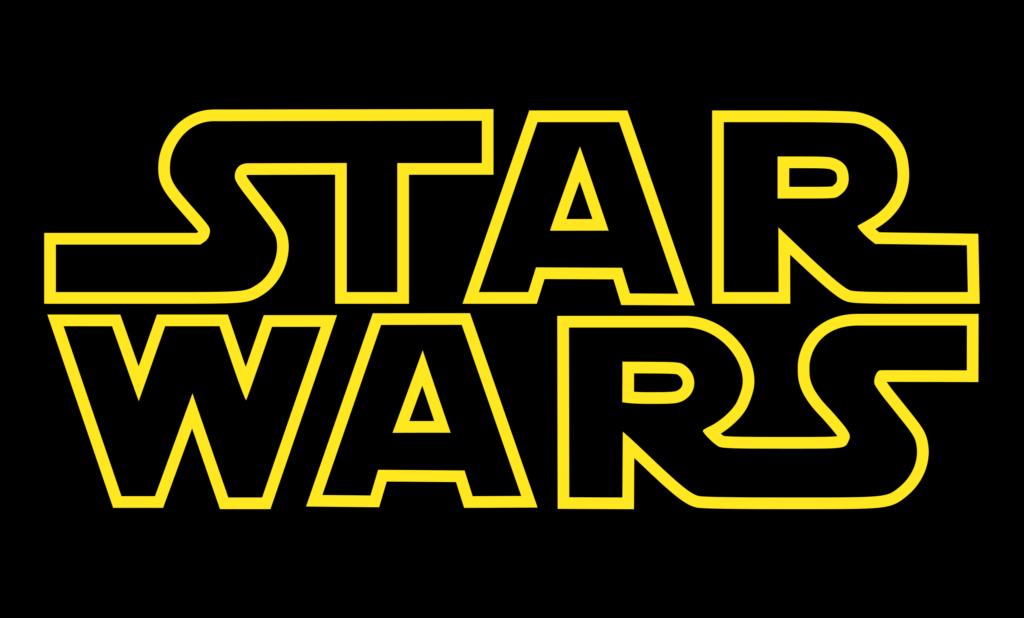
What is the Closest Equivalent Font in Canva to The Star Wars Font?
There are a number of fonts that are very similar to the Star Wars Font in Canva. Some of these fonts include:
- Cubao Wide
- Nourd Bold
- Garet Extra Bold
- Archive
None of these fonts are exactly the same as the original (and copyrighted) font, but they all are fairly similar.
Perhaps more important than the font you choose is the Canva effect that you apply to your text.
To create text that resembles the Star Wars Font, you need to use the Canva hollow text effect:
Additionally, to recreate the authentic Star Wars font, you should make your text the same color as the original font and you should capitalize all letters in your text.
The color code of the yellow font used in the Star Wars font is FFE81F.
Sample Recreation Star Wars Fonts Made with Canva Fonts:
Once you’ve selected the font, applied the text color effect, capitalized all the letters, and applied the hollow letter effect, you will have four options:
Alternative Star Wars Fonts for Canva